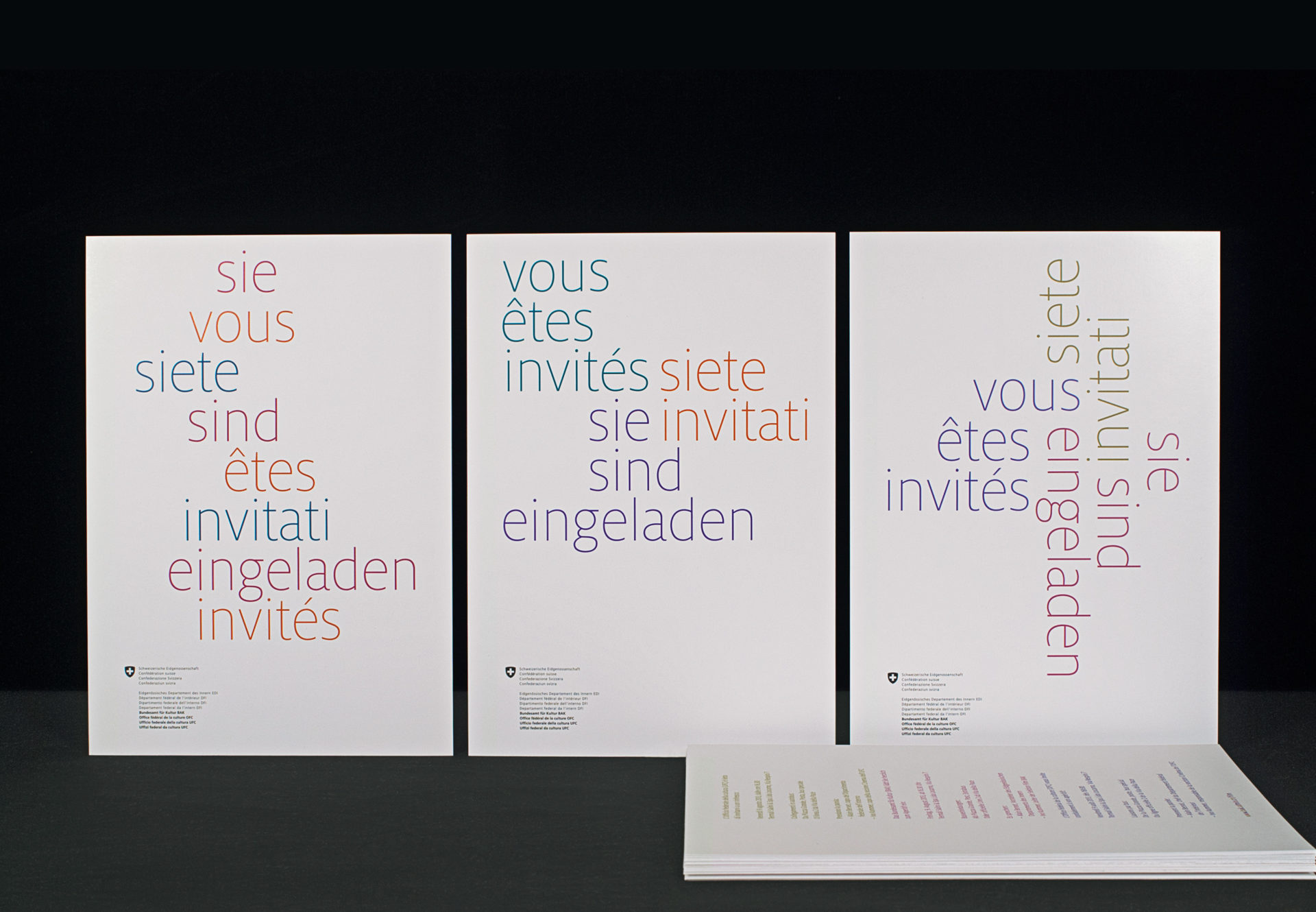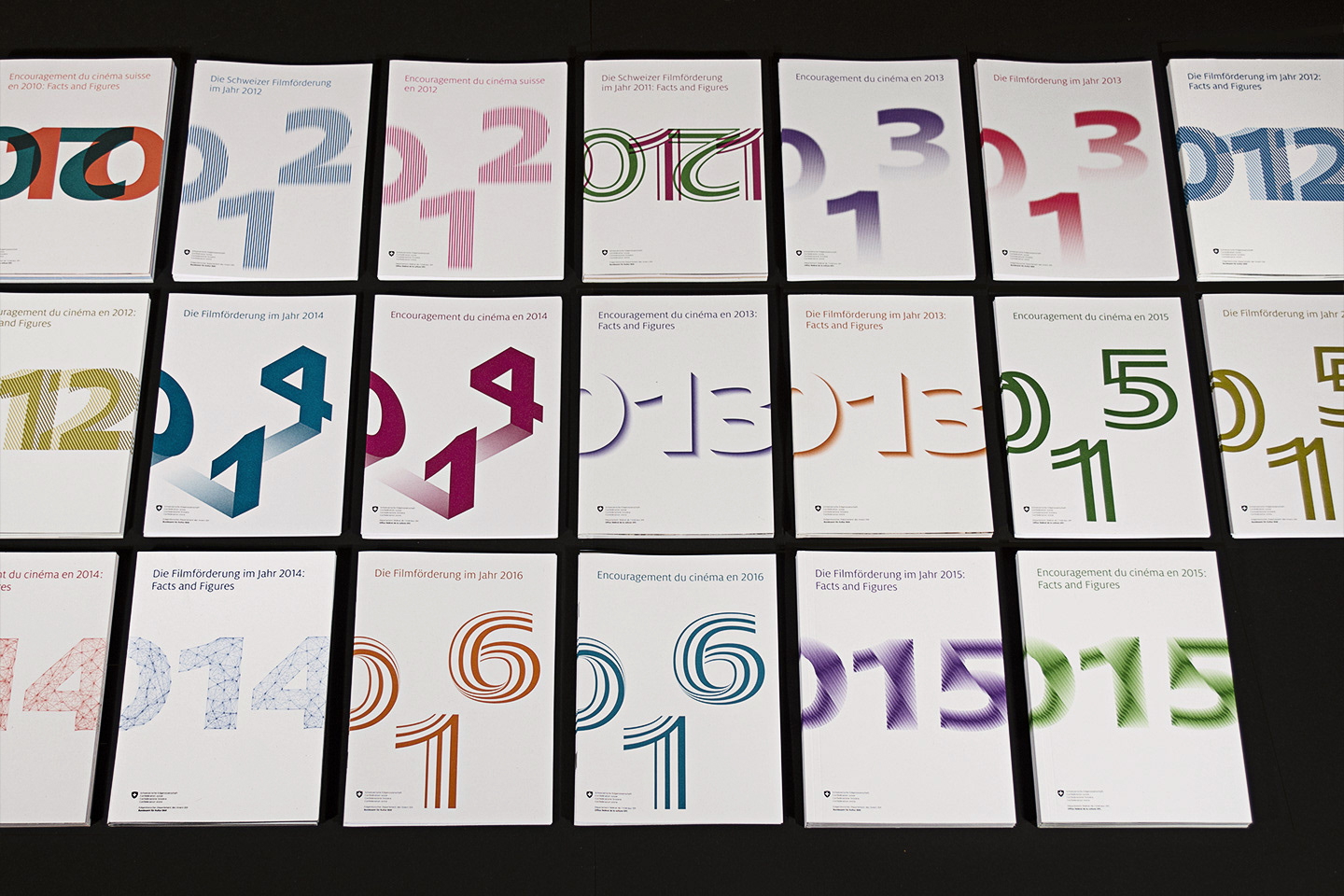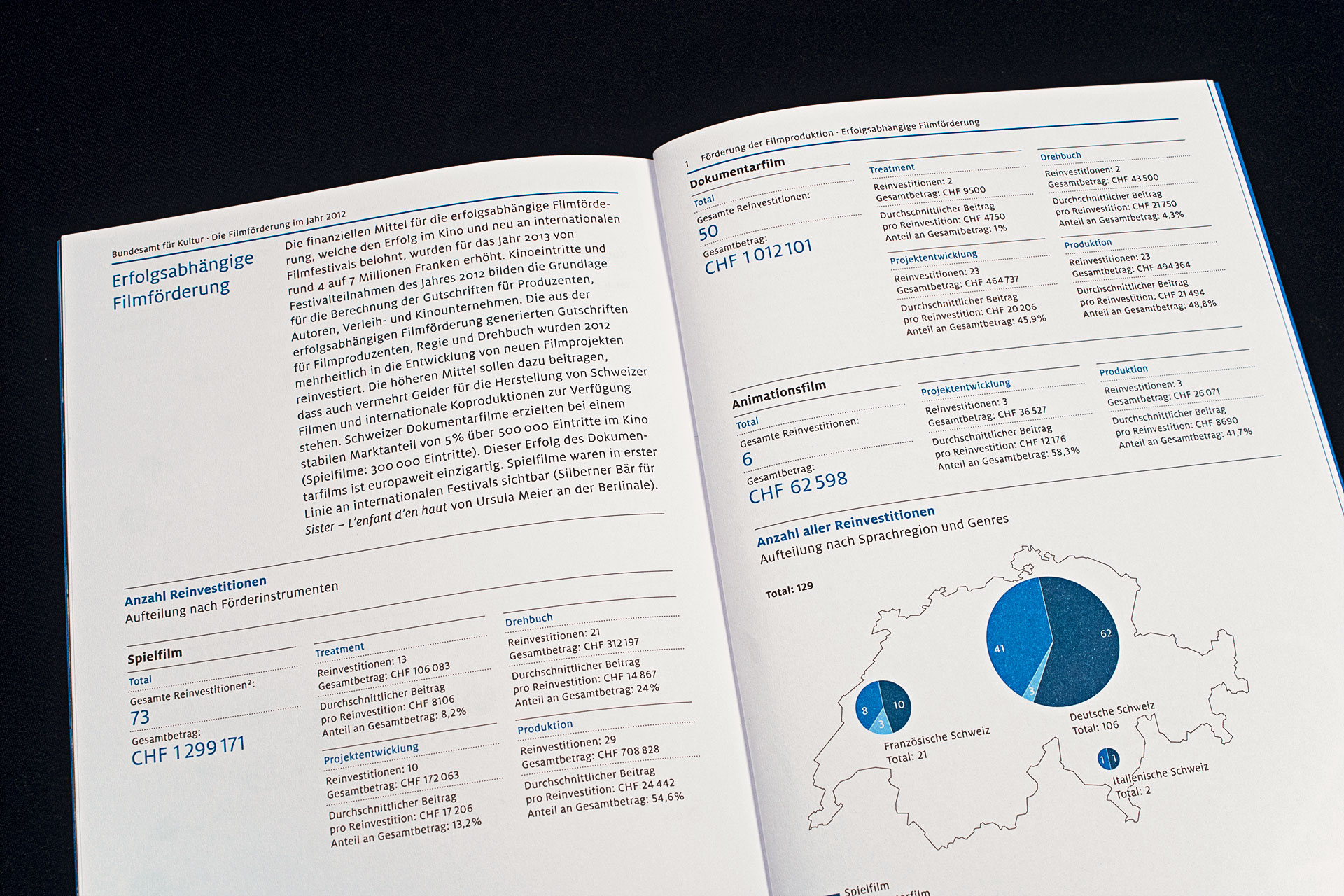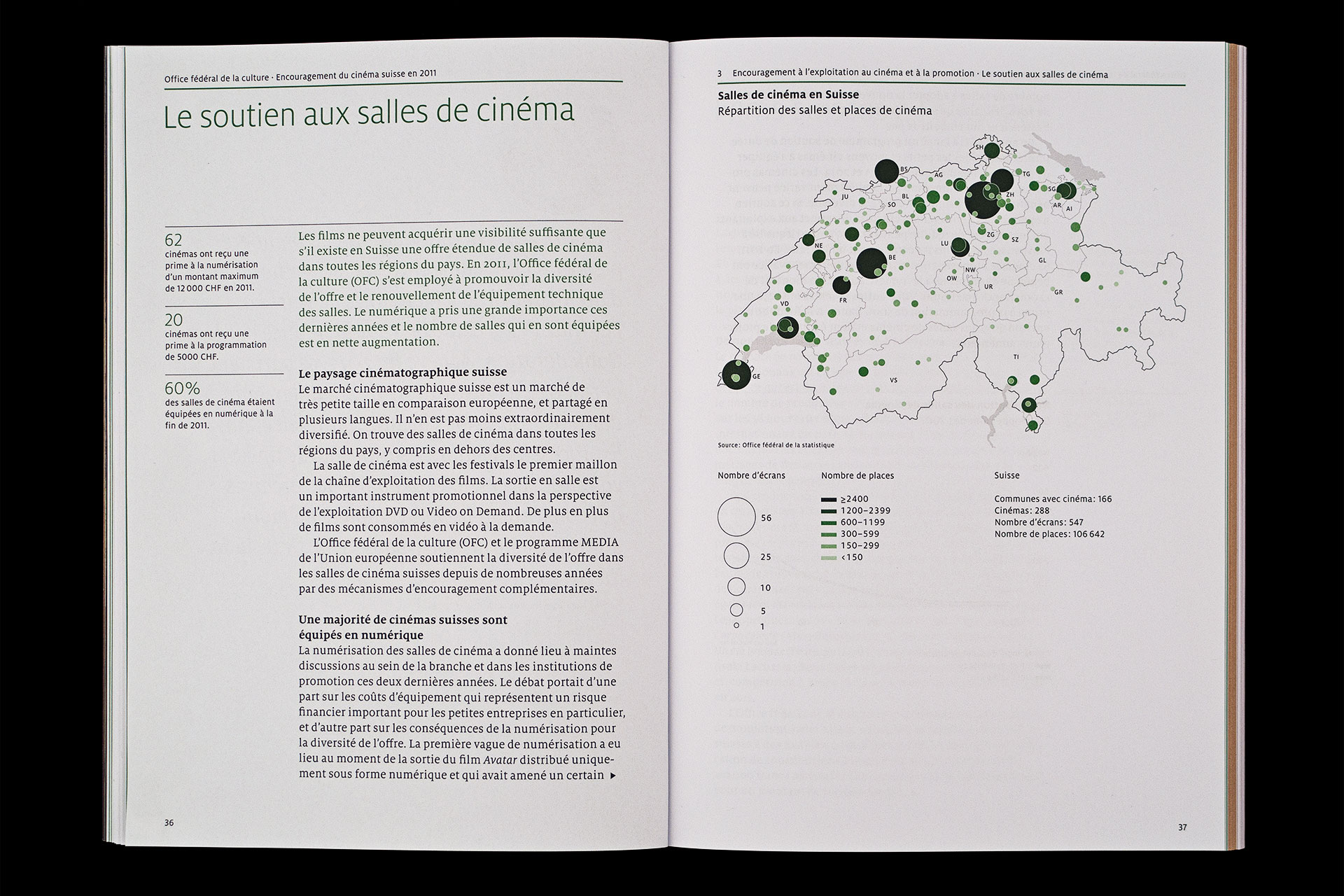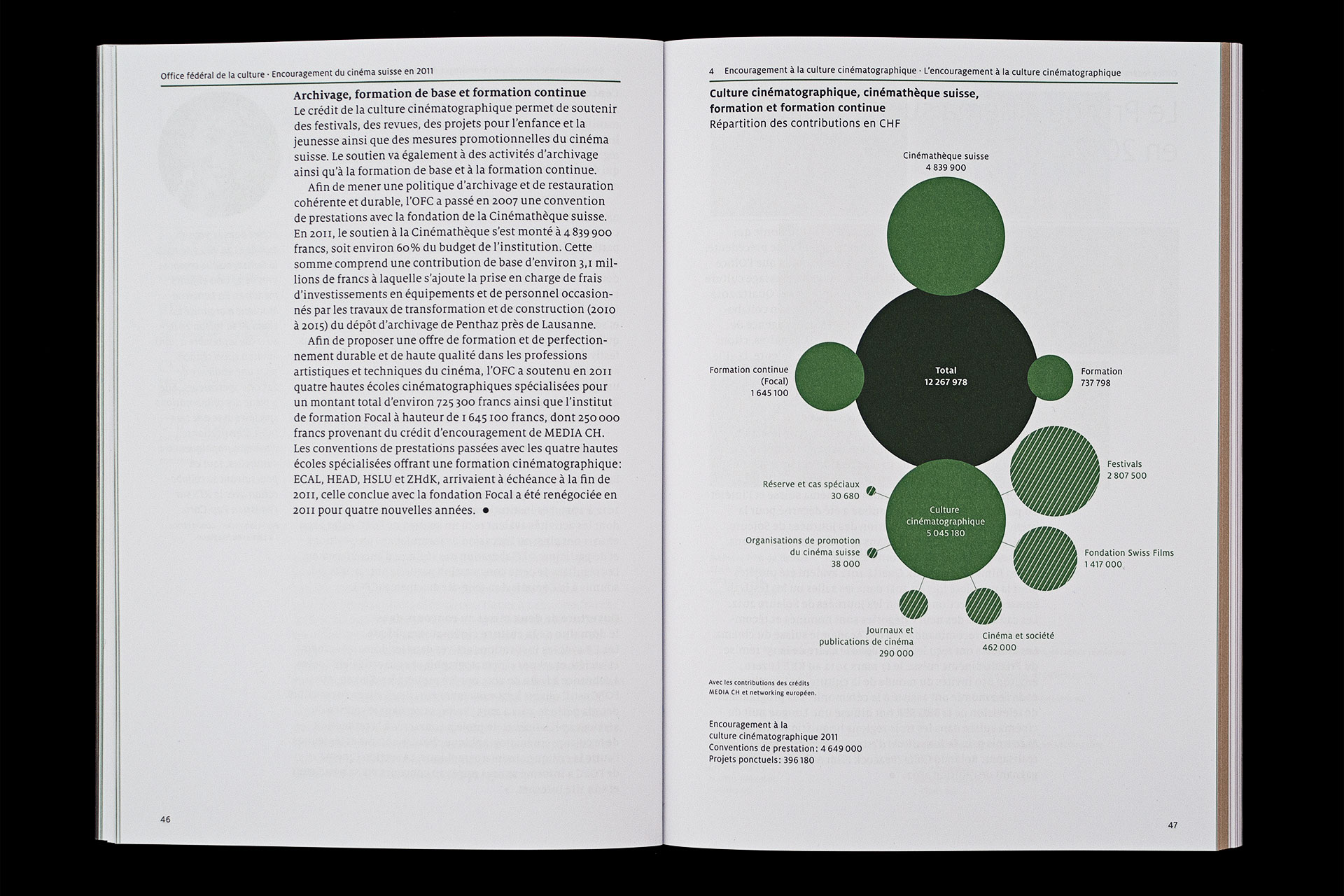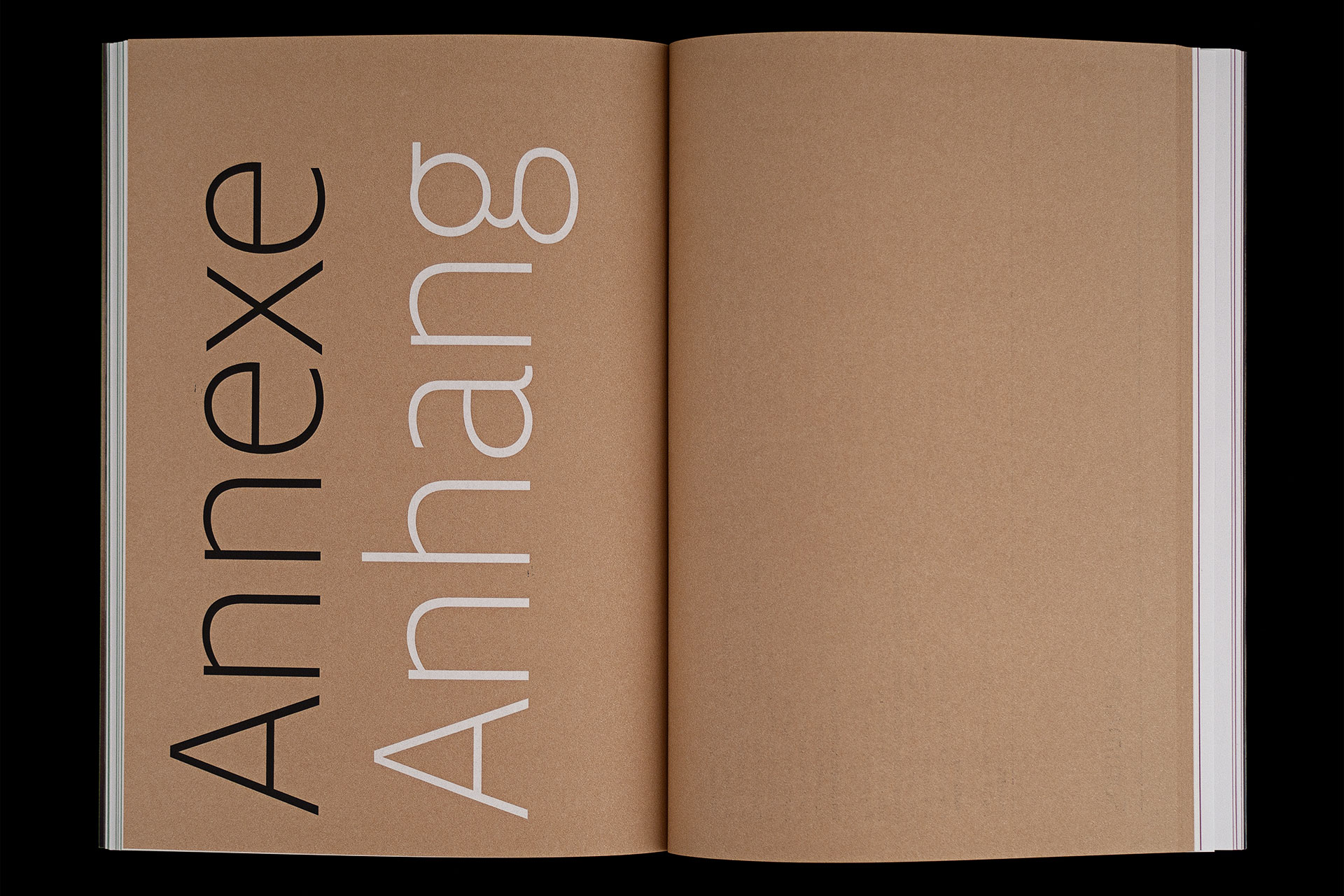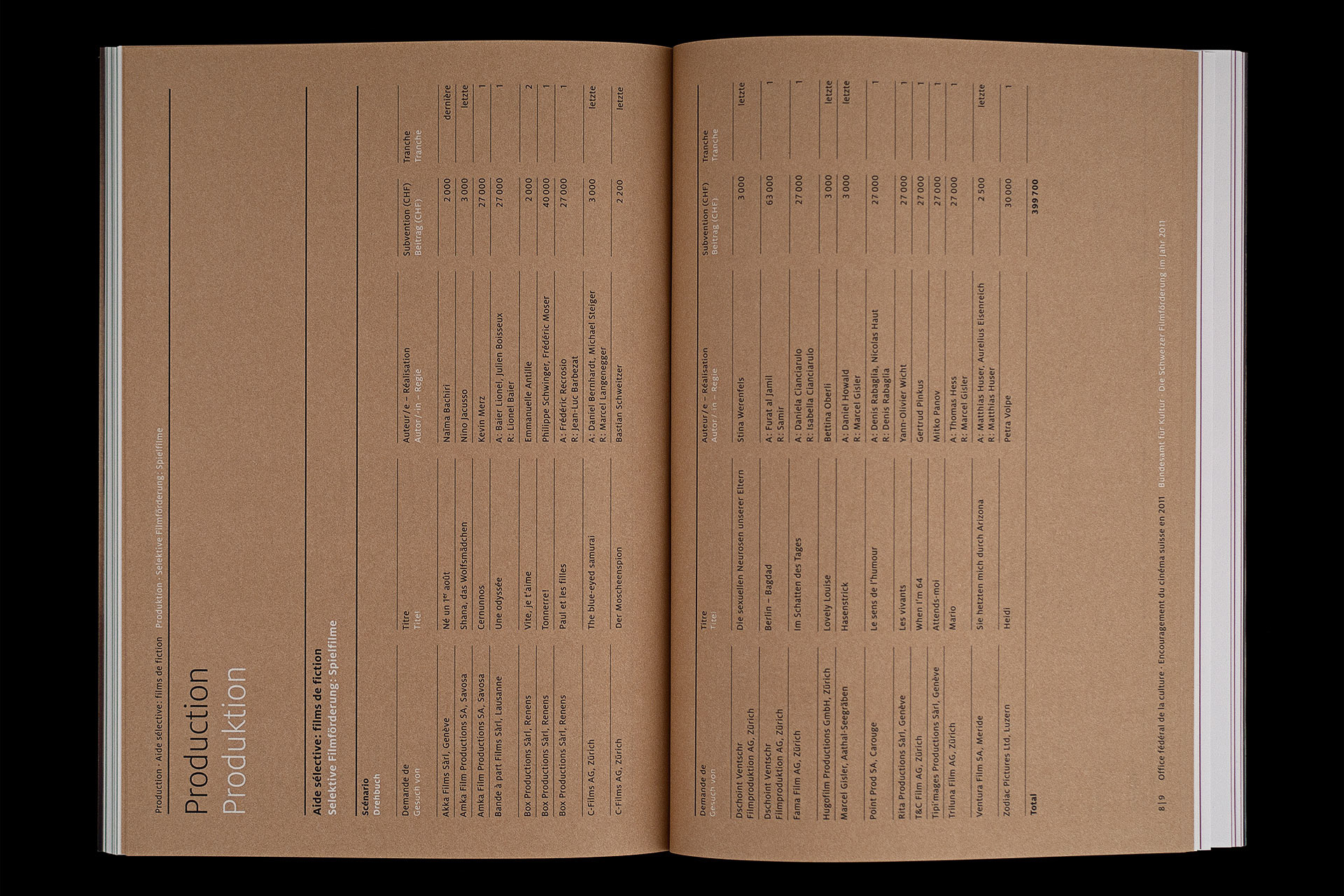
The initial concept with FF Milo was to create a compact sans with very short ascenders and descenders. This resulted in a versatile typeface ideally suited for advertising, packaging, book text, small text, editorial, logos, branding, as well as wayfinding and signage. The typeface was named after a resilient grain, hinting at its ability to serve as a design staple. In a later release, the design was expanded with the addition of Light, ExtraLight, and Thin weights with Paul van der Laan.
FF Milo provides advanced typographical support with features such as ligatures, small capitals, alternate characters, case-sensitive forms, fractions, and super and subscript characters. It comes with a complete range of figure set options — oldstyle and lining figures, each in tabular and proportional widths. FF Milo was designed in 2005–2006.
Design and images by Studio Lorenz Tschopp, Zurich, Switzerland. Swiss Film Fund annual report and various printed matter using FF Milo.